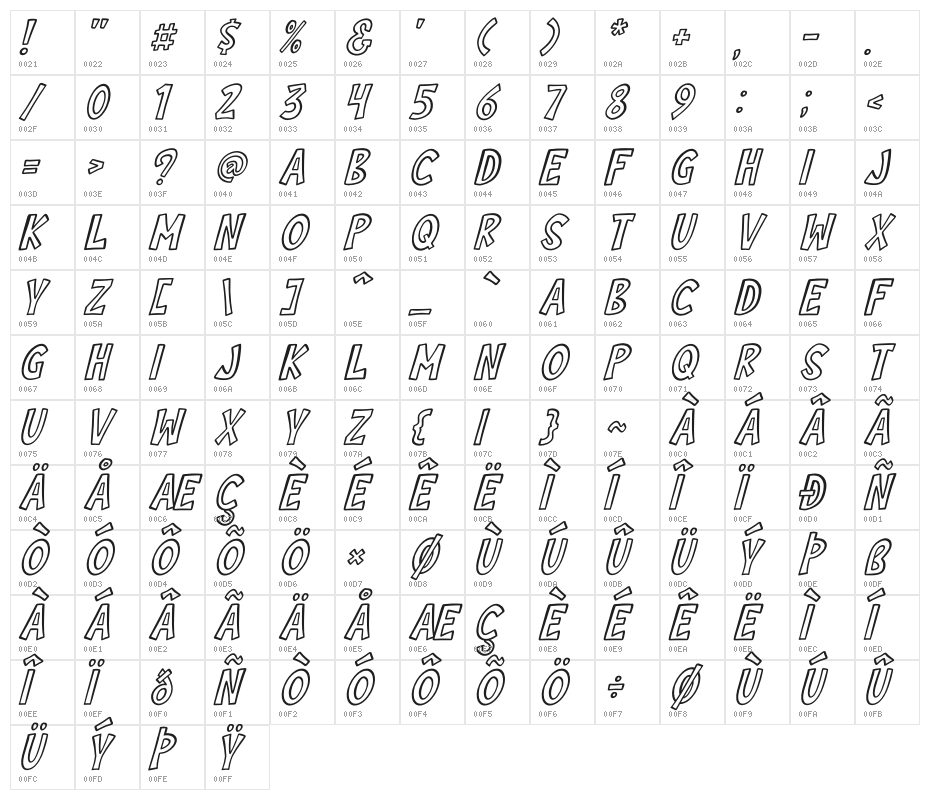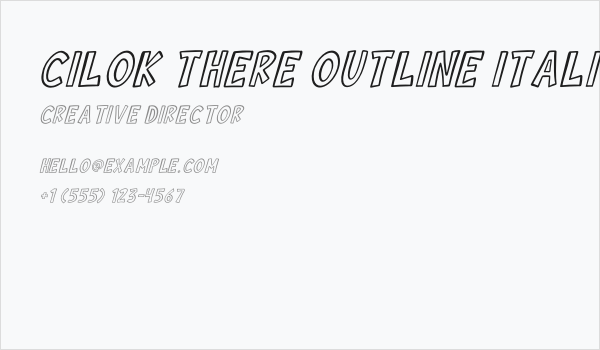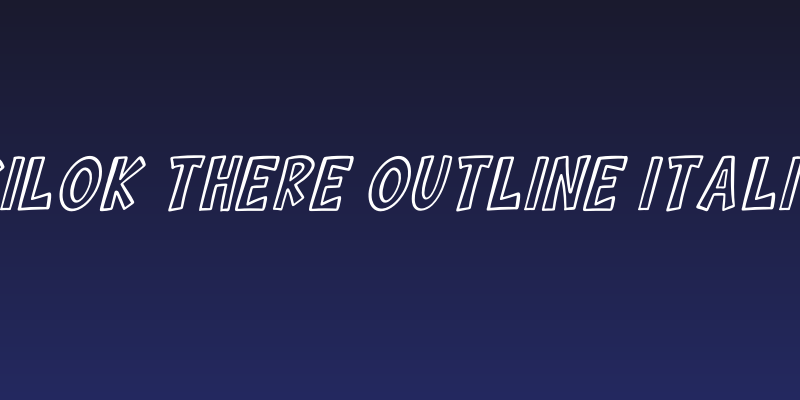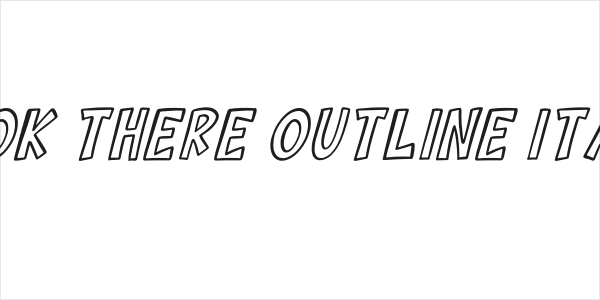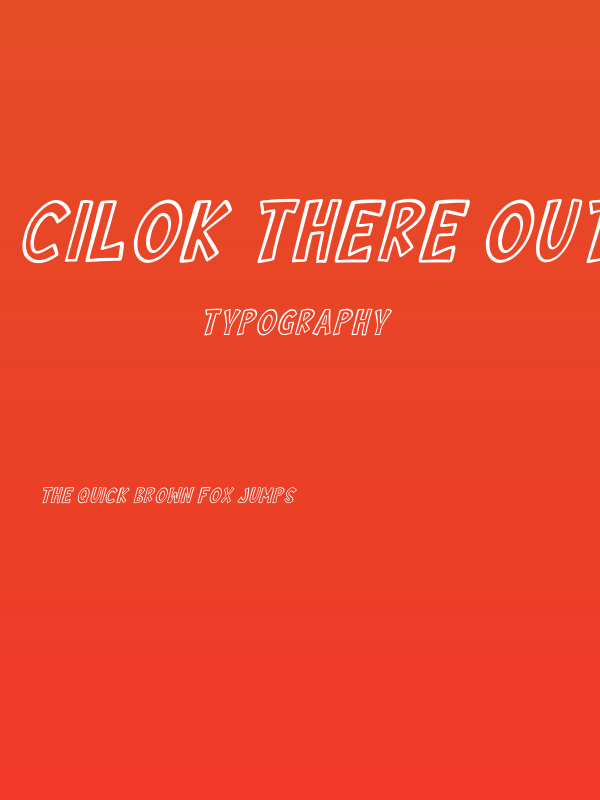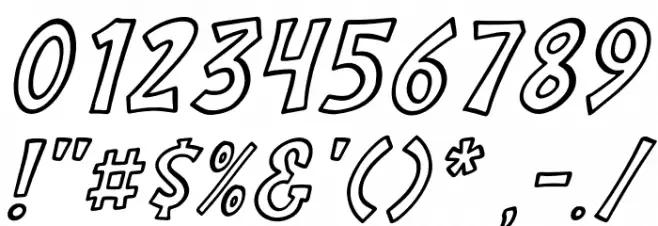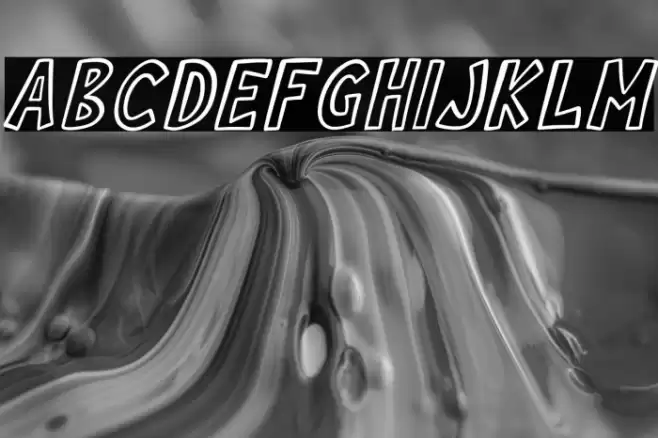
Cilok There Outline Italic Font
Cilok There Outline Italic Description
This font features a playful and dynamic outline style with a distinct italic slant, giving it a sense of movement and energy. The characters are bold and well-defined, with a consistent stroke width that maintains readability while adding a touch of flair. The uppercase and lowercase letters are designed with a uniform height, creating a cohesive look across the alphabet. The numerals and special characters follow the same stylistic approach, ensuring versatility in various design contexts. This font's unique outline effect makes it stand out, ideal for projects that require a bold and creative touch.
| Proposed Projects | Ideal for posters, branding, headlines, and creative design projects that require a bold and energetic typeface. |